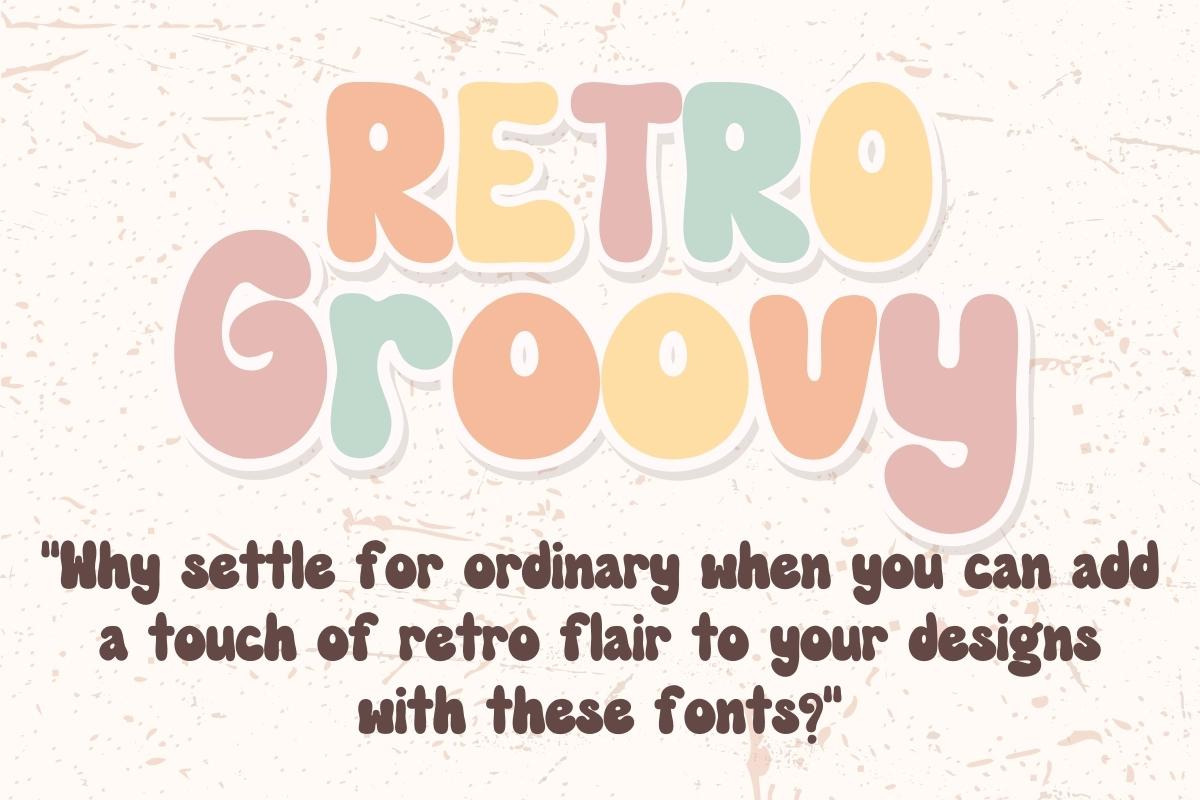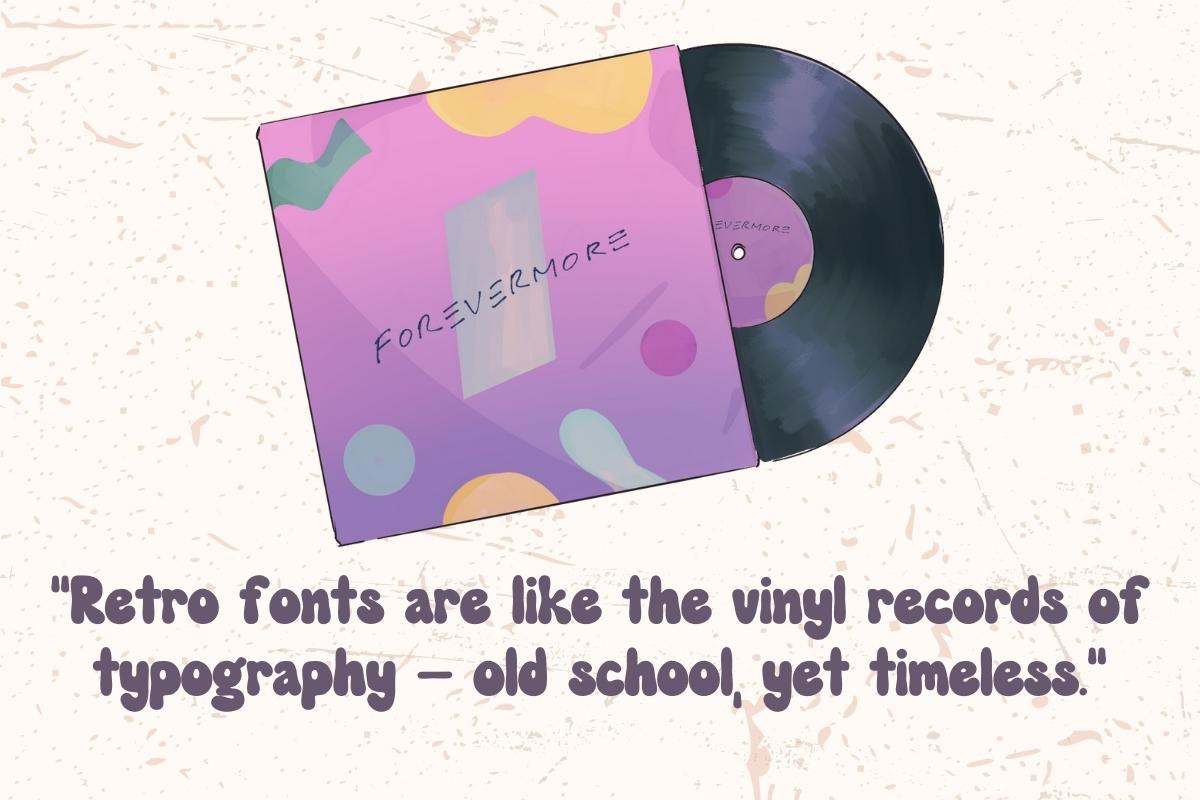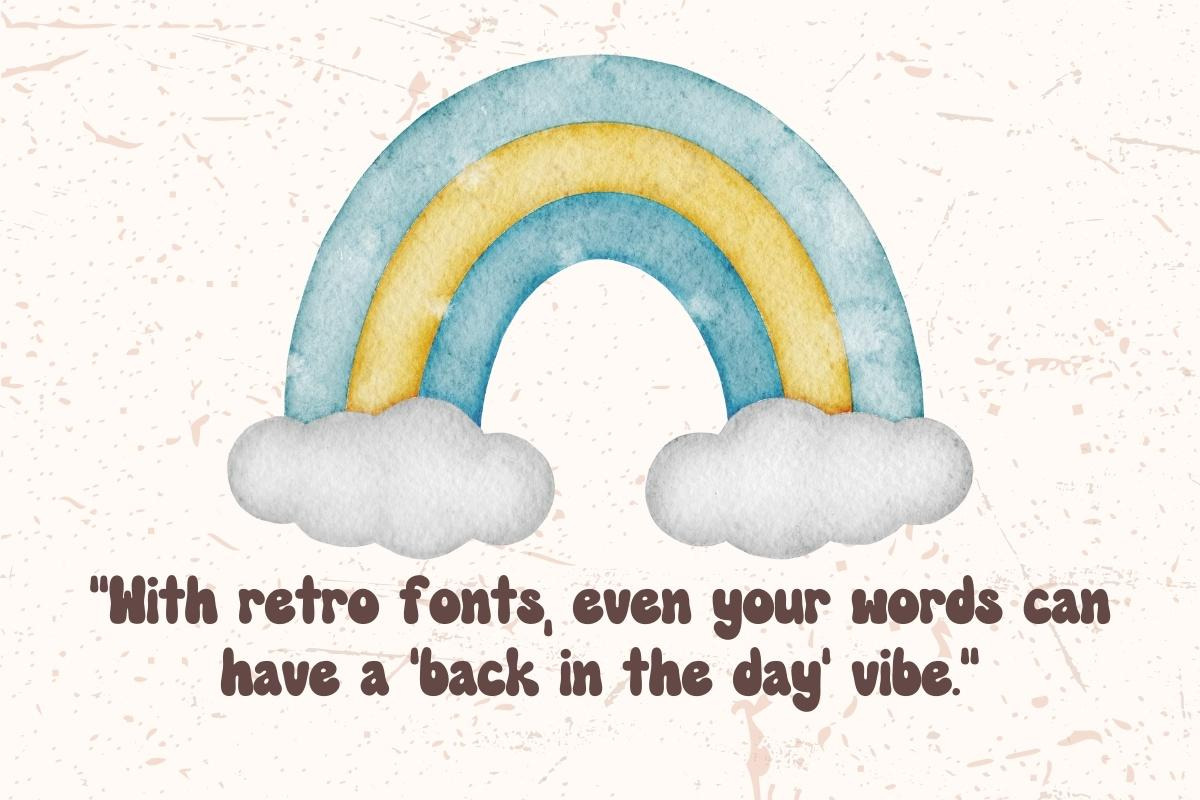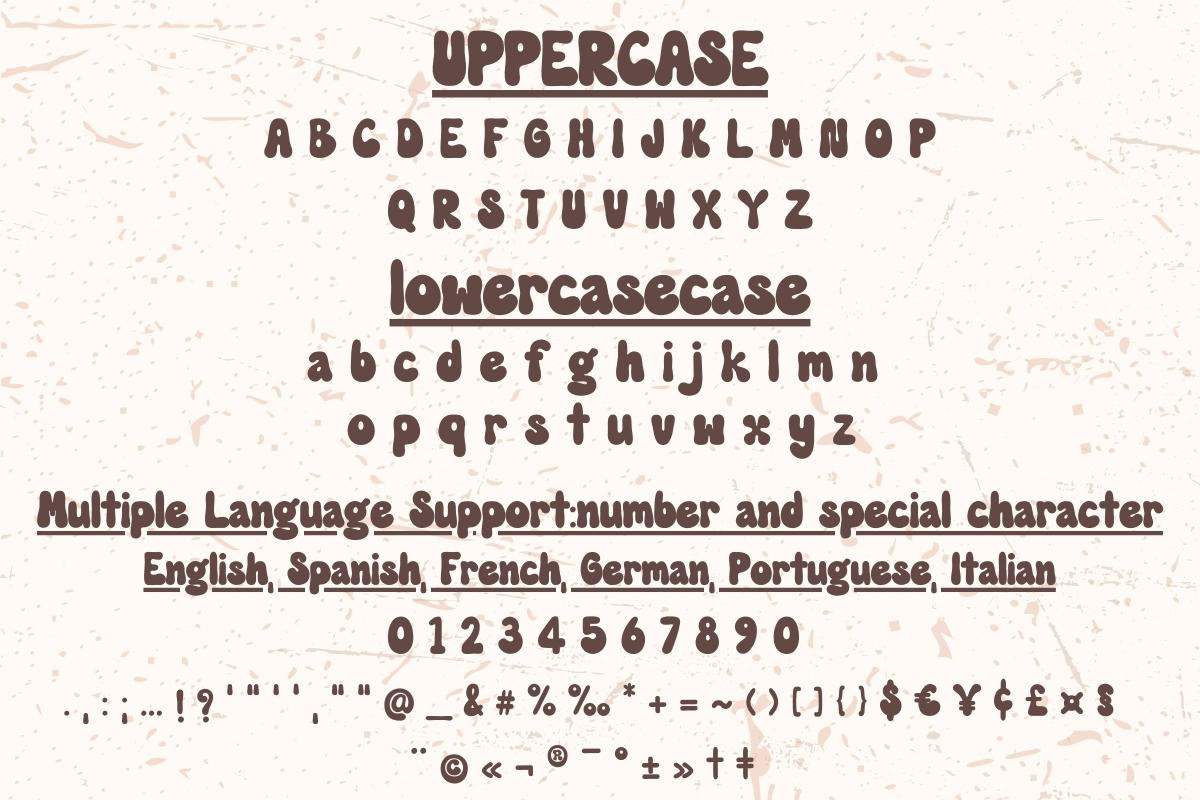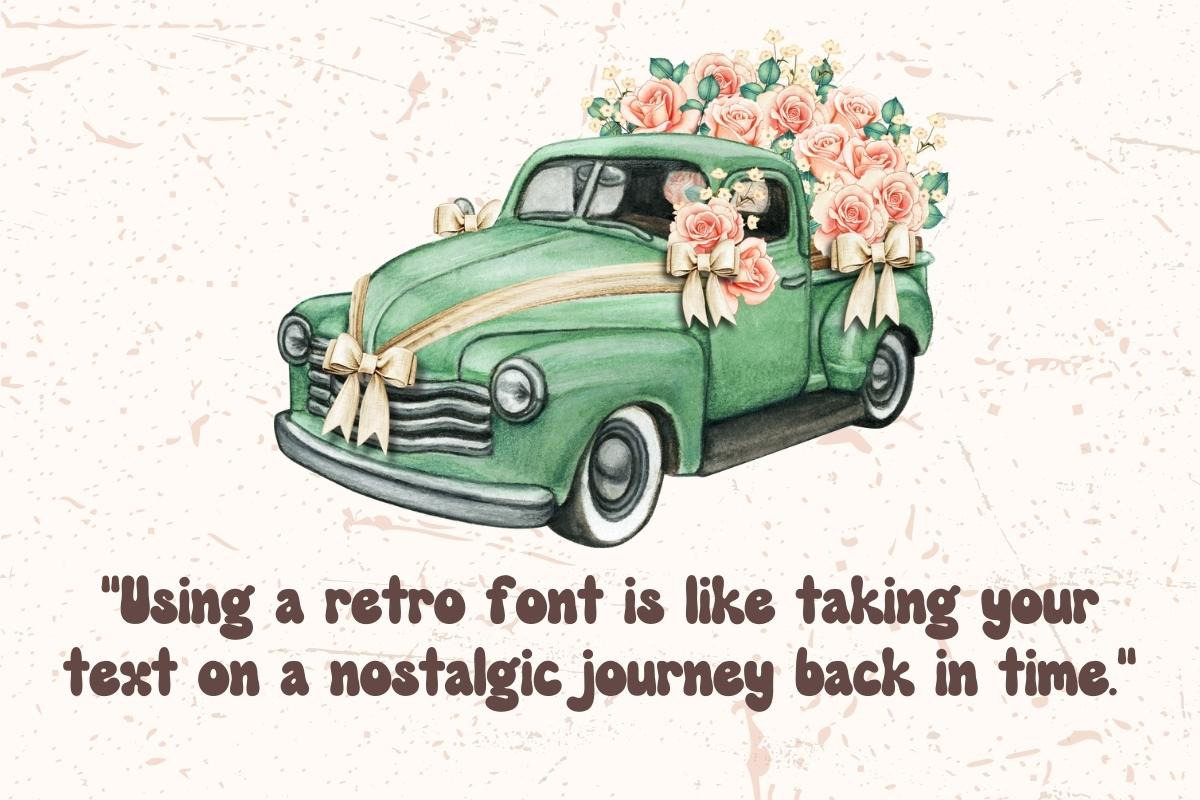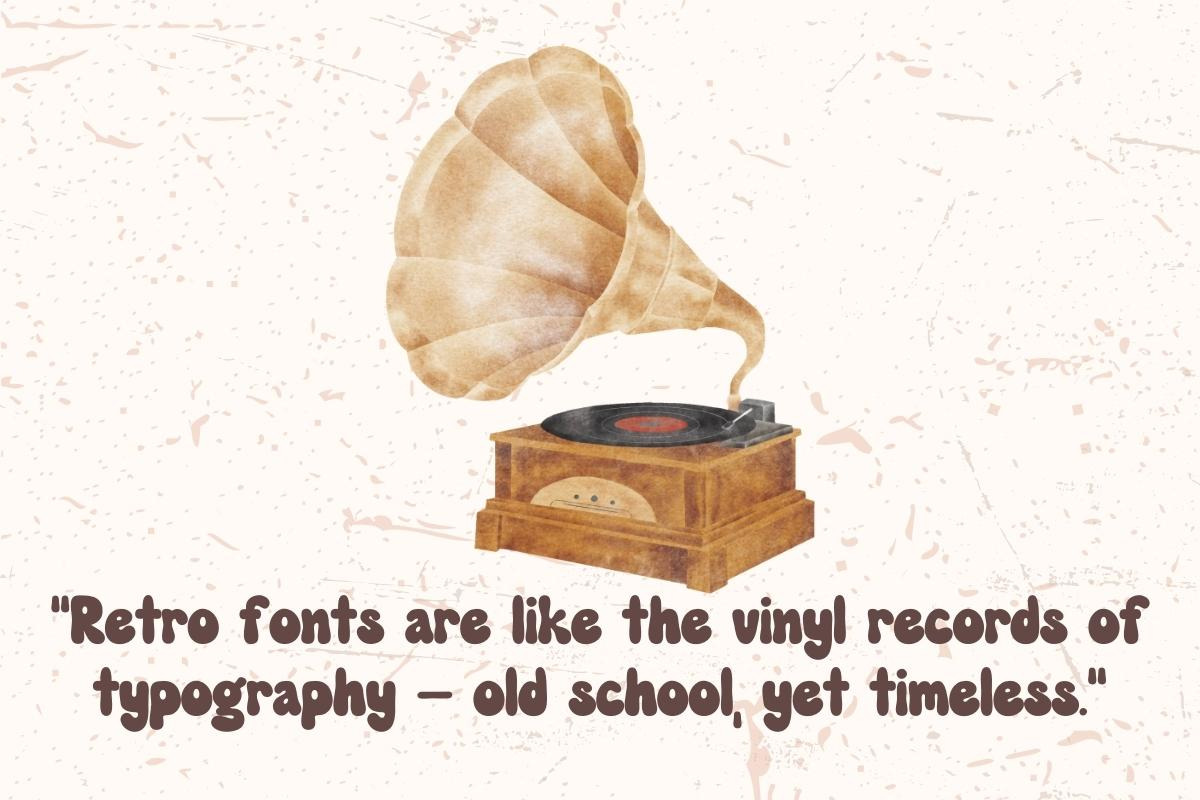
Retro Groovy - Display Handwritten
Introducing "Retro Groovy" - the ultimate fusion of nostalgia and creativity in a font! This display font captures the essence of a handwritten, retro style that will transport your projects to a bygone era.Whether you're designing posters, branding materials, Suitable for creating stylish designs diverse Compatible with many products such as names on gifts, mugs, cards, shirts, banners, content, stationery, social media posts and more, Retro Groovy is your ticket to infusing that irresistible vintage charm. Embrace the past and make your designs stand out with the alluring character of this retro font. Try it now and let your creativity groove!